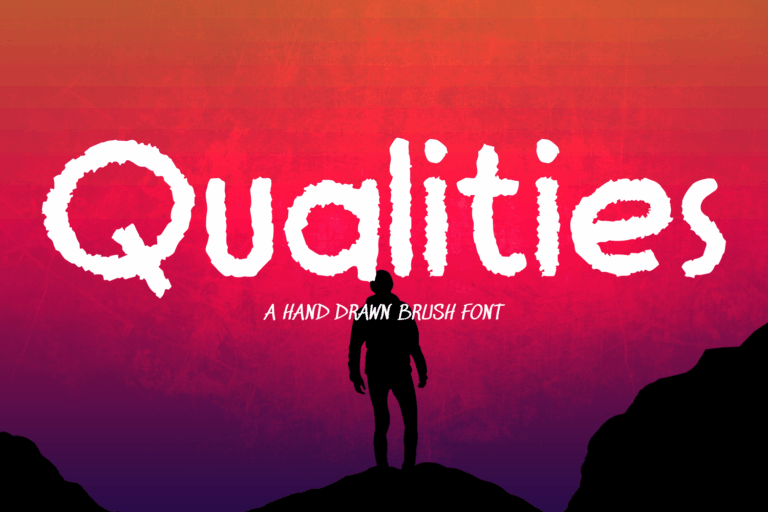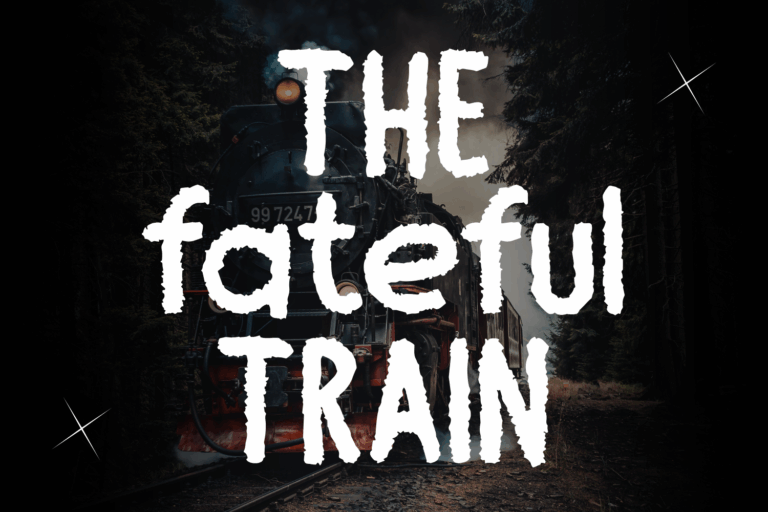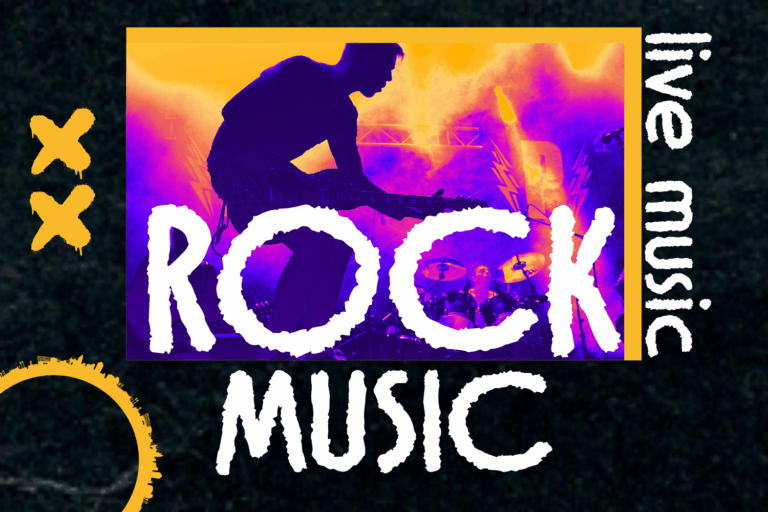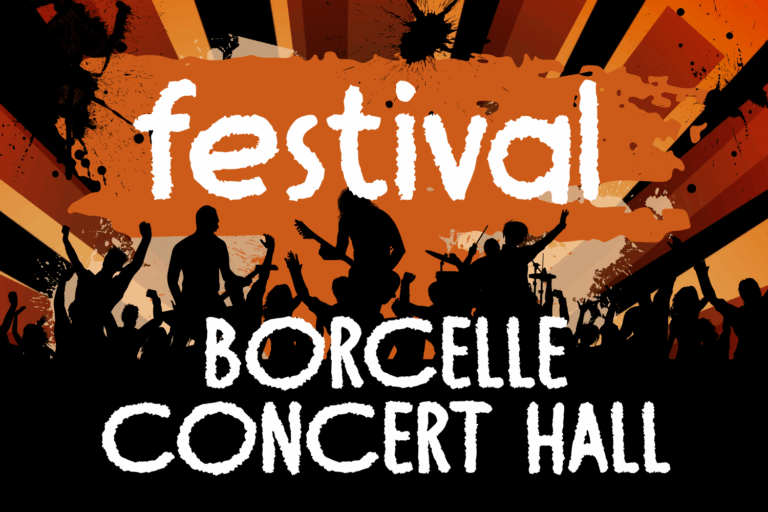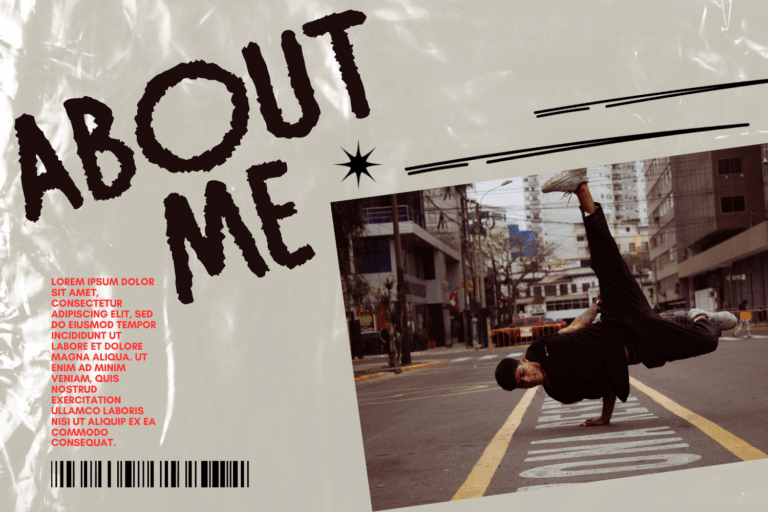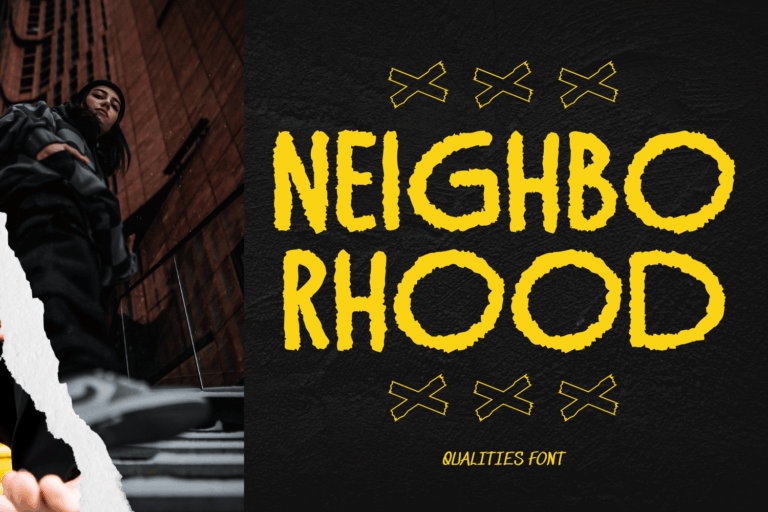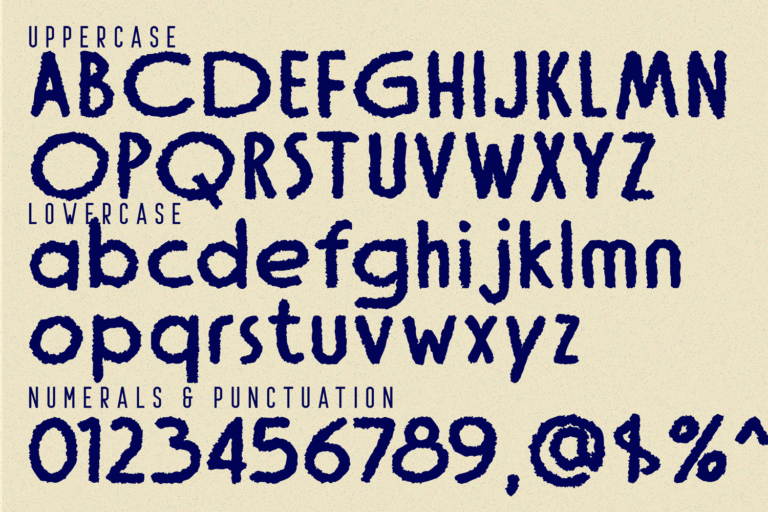
Qualities – Grunge Font is a raw and expressive grunge display font that captures the essence of imperfection and rebellion. With its hand-drawn, jagged edges and textured contours, this font brings a sense of urgency and authenticity to any design project. Whether you’re working on a music album cover, horror poster, indie zine, or bold headline, Qualities delivers unapologetic attitude with every letter. The rugged outlines and chaotic rhythm make it stand out in noisy visuals, perfect for creatives who want to break the mold.
• Uppercase & Lowercase Letters
• Accented Characters for Multilingual Support